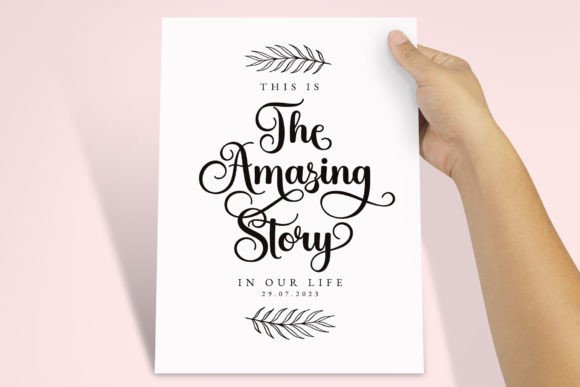
Mankind Font: Elevate Your Designs with Elegance and Sophistication
In the world of typography, fonts play a crucial role in conveying the tone and personality of a design. Among the numerous fonts available, Mankind Font stands out as a modern and elegant script font that can add a touch of luxury and sophistication to any creative project. In this article, we’ll delve into the features and benefits of Mankind Font, exploring how it can elevate your designs and leave a lasting impression on your audience.
What Makes Mankind Font Special?
Mankind Font is a beautifully crafted script font that exudes elegance and refinement. Its modern design makes it perfect for a wide range of applications, from branding and advertising to packaging and digital media. Here are some key features that set Mankind Font apart:
- Unique and Elegant Design: Mankind Font boasts a distinctive and stylish design that is sure to capture attention. Its elegant curves and refined lines make it perfect for creating sophisticated and luxurious designs.
- Girly, Fancy, and Luxurious: This font is characterized by its feminine and elegant feel, making it ideal for designs that require a touch of glamour and sophistication.
- Highly Versatile: Mankind Font can be used in a variety of contexts, from digital media to print materials, and is suitable for a range of industries, including fashion, beauty, and lifestyle.
- Easy to Read: Despite its elegant design, Mankind Font is highly legible, making it perfect for use in body text, headlines, and titles.
Creative Ways to Use Mankind Font
Mankind Font is an incredibly versatile font that can be used in a wide range of creative projects. Here are some ideas to get you started:
- Branding and Logo Design: Use Mankind Font to create a luxurious and sophisticated brand identity that reflects your company’s values and personality.
- Wedding and Event Invitations: Add a touch of elegance and romance to your wedding or event invitations with Mankind Font.
- Fashion and Beauty Packaging: Use Mankind Font to create eye-catching packaging for your fashion or beauty products that stands out on store shelves.
- Digital Media: Mankind Font is perfect for use in digital media, including social media graphics, blog posts, and website headers.
Tips for Getting the Most Out of Mankind Font
To make the most of Mankind Font, here are some tips to keep in mind:
- Pair it with Neutral Colors: Mankind Font looks stunning when paired with neutral colors like black, white, and gray. This allows the font to take center stage and make a bold statement.
- Experiment with Font Sizes: Don’t be afraid to experiment with different font sizes to create visual interest and hierarchy in your designs.
- Add Decorative Elements: Consider adding decorative elements like illustrations or graphics to enhance the elegance and sophistication of Mankind Font.
- Use it Sparingly: While Mankind Font is a beautiful font, it’s best used sparingly to avoid overwhelming the reader. Use it for headlines, titles, or key messages to make a lasting impact.
Inspiration: Examples of Mankind Font in Action
To give you a better idea of what Mankind Font can do, here are some inspiring examples of the font in action:
A stunning example of Mankind Font used in a fashion brand’s logo design, exuding elegance and sophistication.
A beautiful wedding invitation featuring Mankind Font, adding a touch of romance and luxury to the design.
A creative use of Mankind Font in a digital media graphic, showcasing the font’s versatility and elegance.
In conclusion, Mankind Font is a modern and elegant script font that can add a touch of luxury and sophistication to any creative project. With its unique design, versatility, and ease of use, it’s perfect for designers, entrepreneurs, and marketers looking to elevate their designs and make a lasting impression on their audience. Whether you’re looking to create a brand identity, wedding invitation, or digital media graphic, Mankind Font is sure to deliver stunning results.